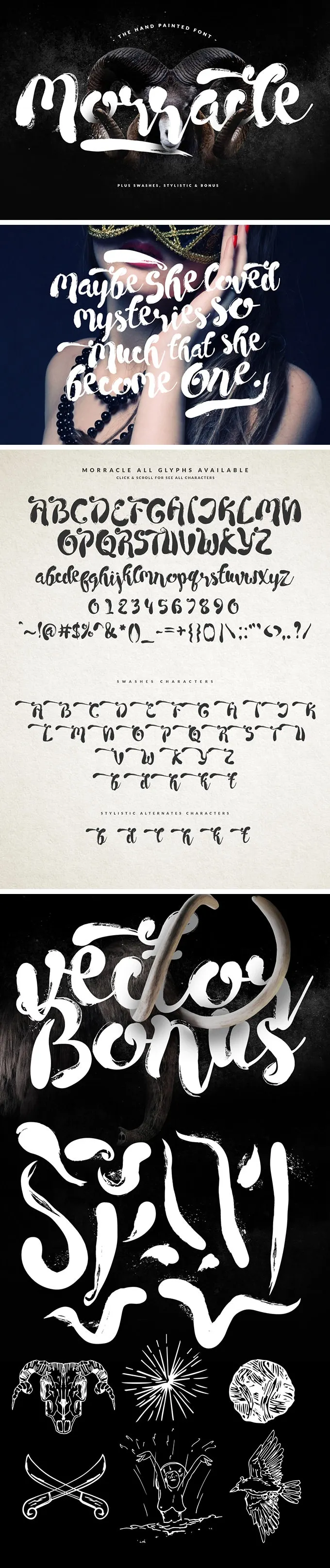
Morracle Brush Font
It's a pleasure to announce that an outstanding Morracle brush font, inspired by the ink & tints hand drawing, available for free download! Tons of alternate glyphs and bonus vectors are included.